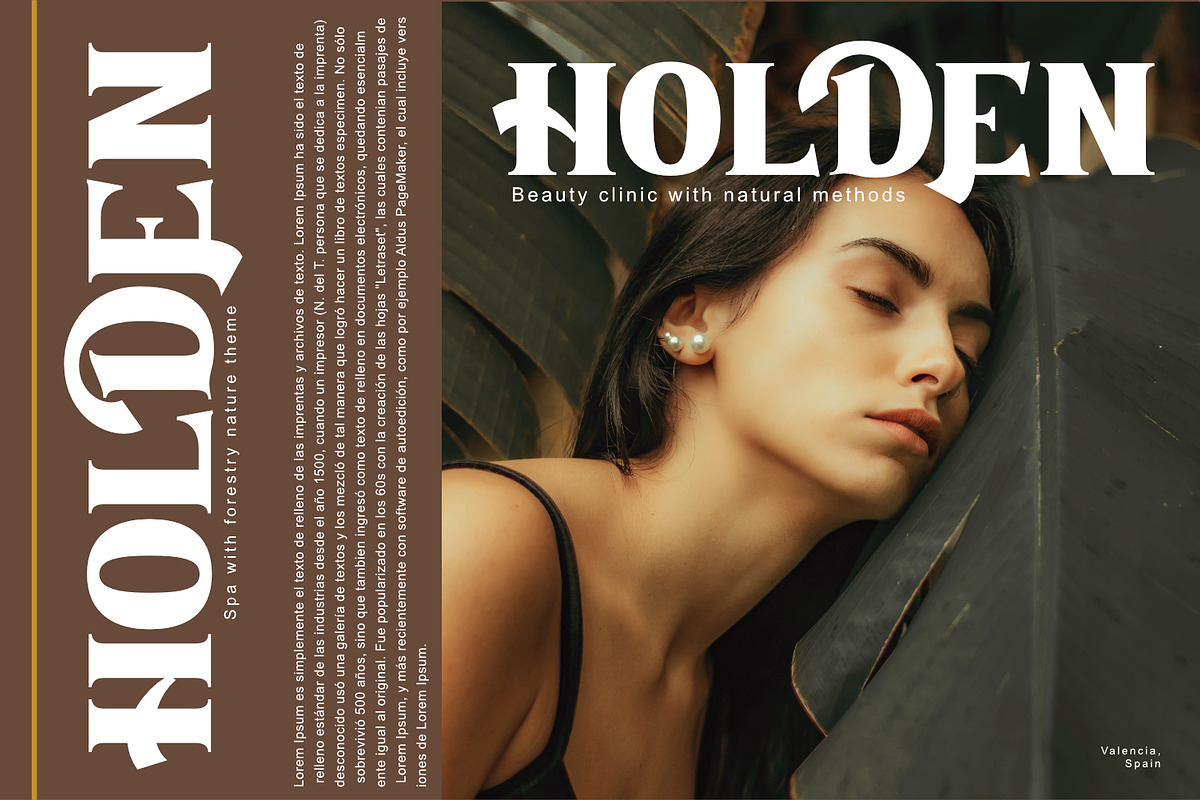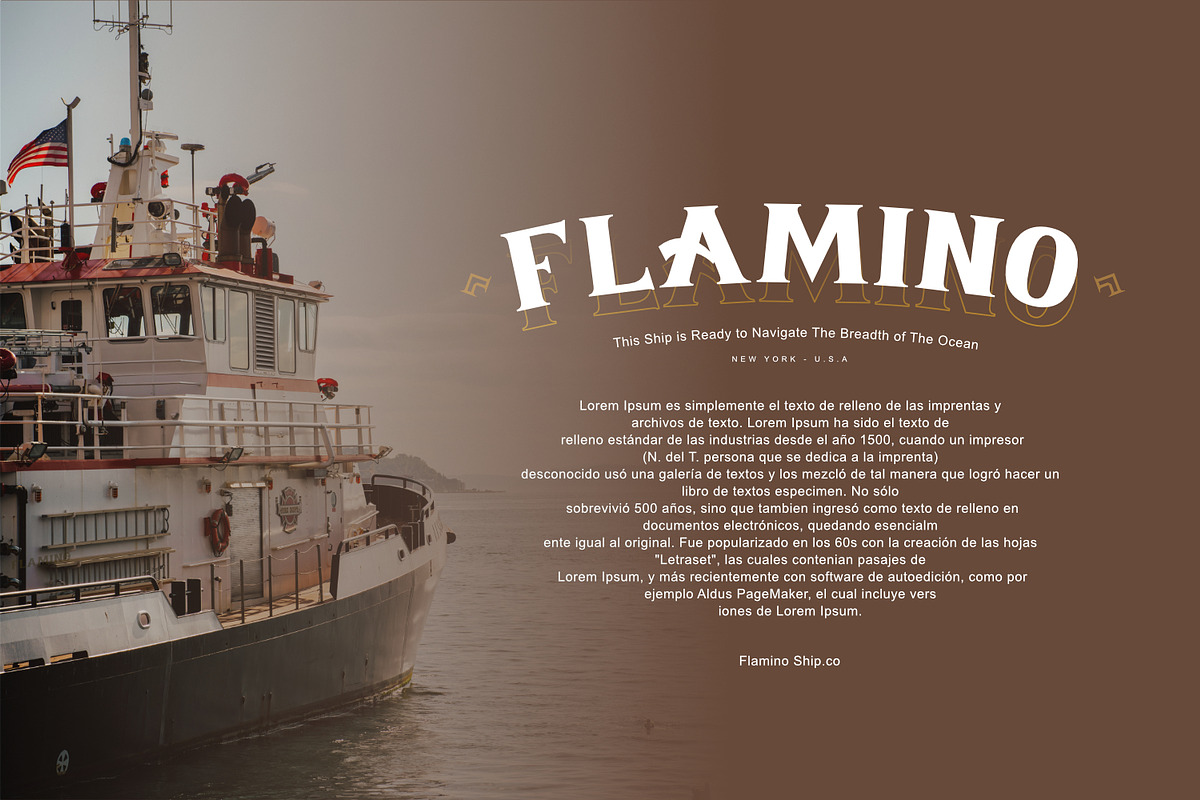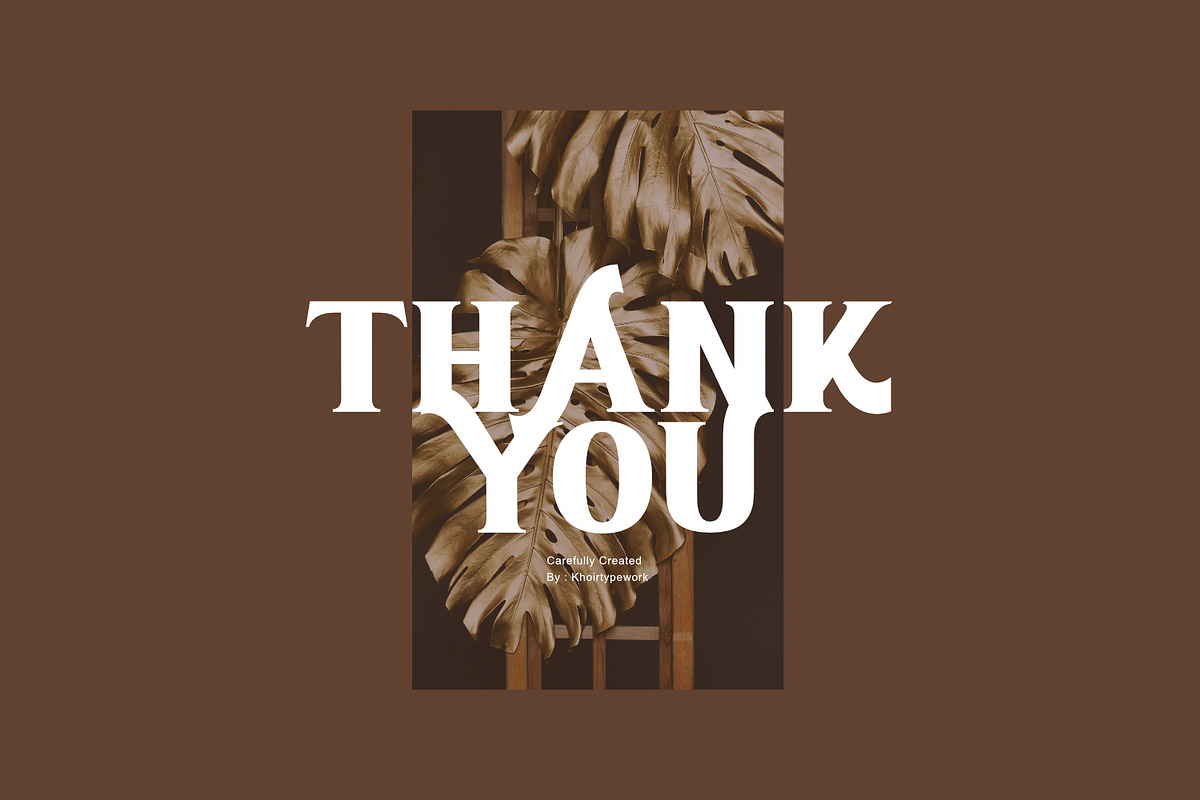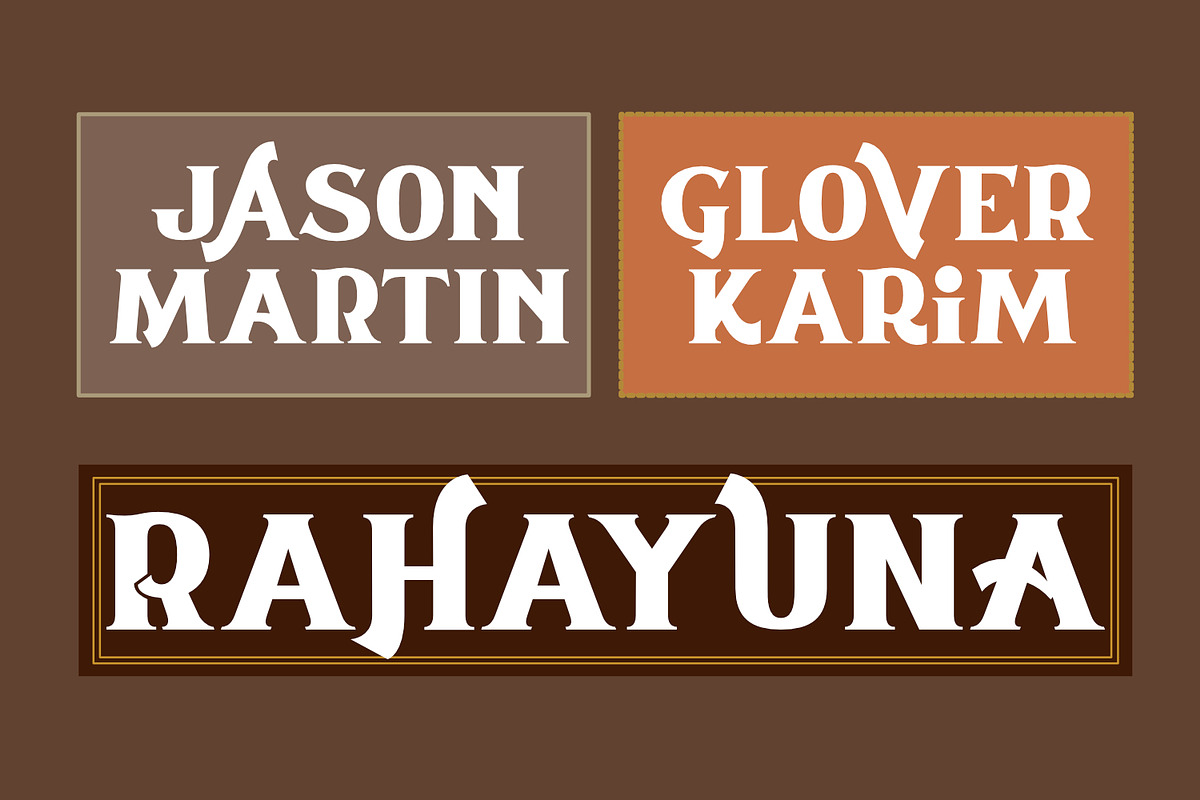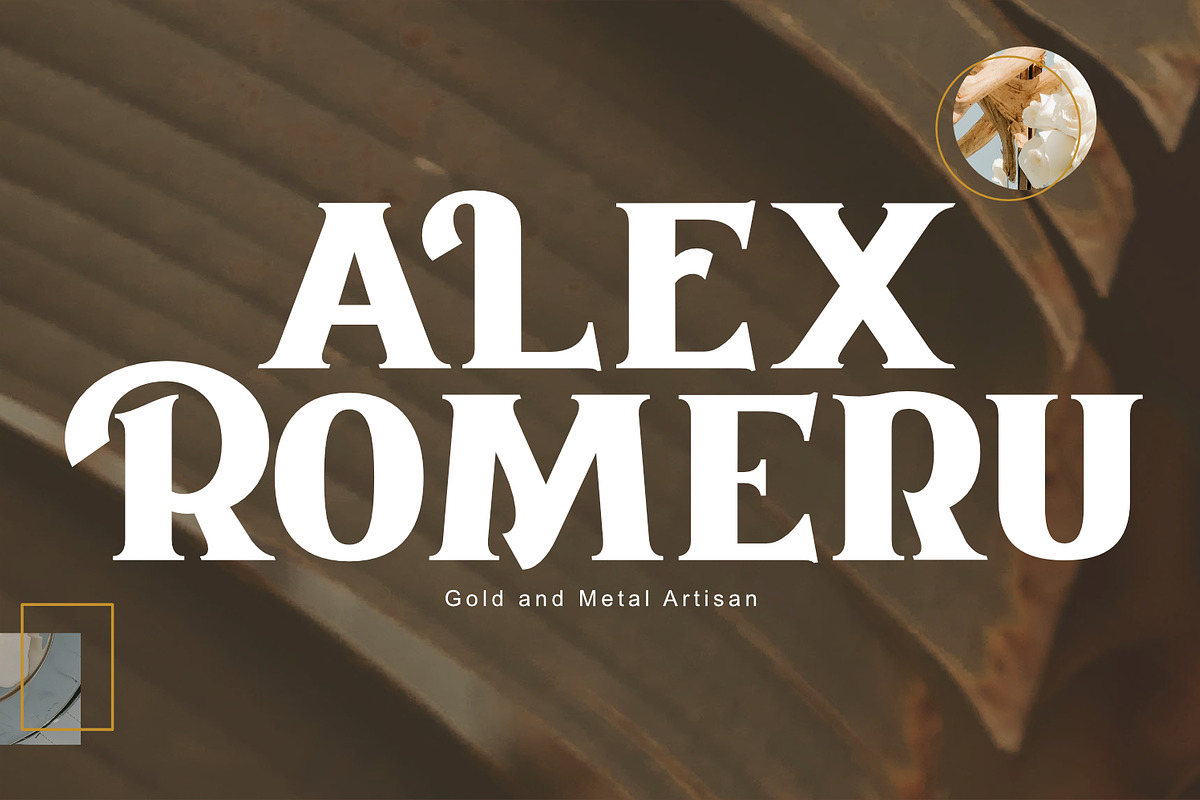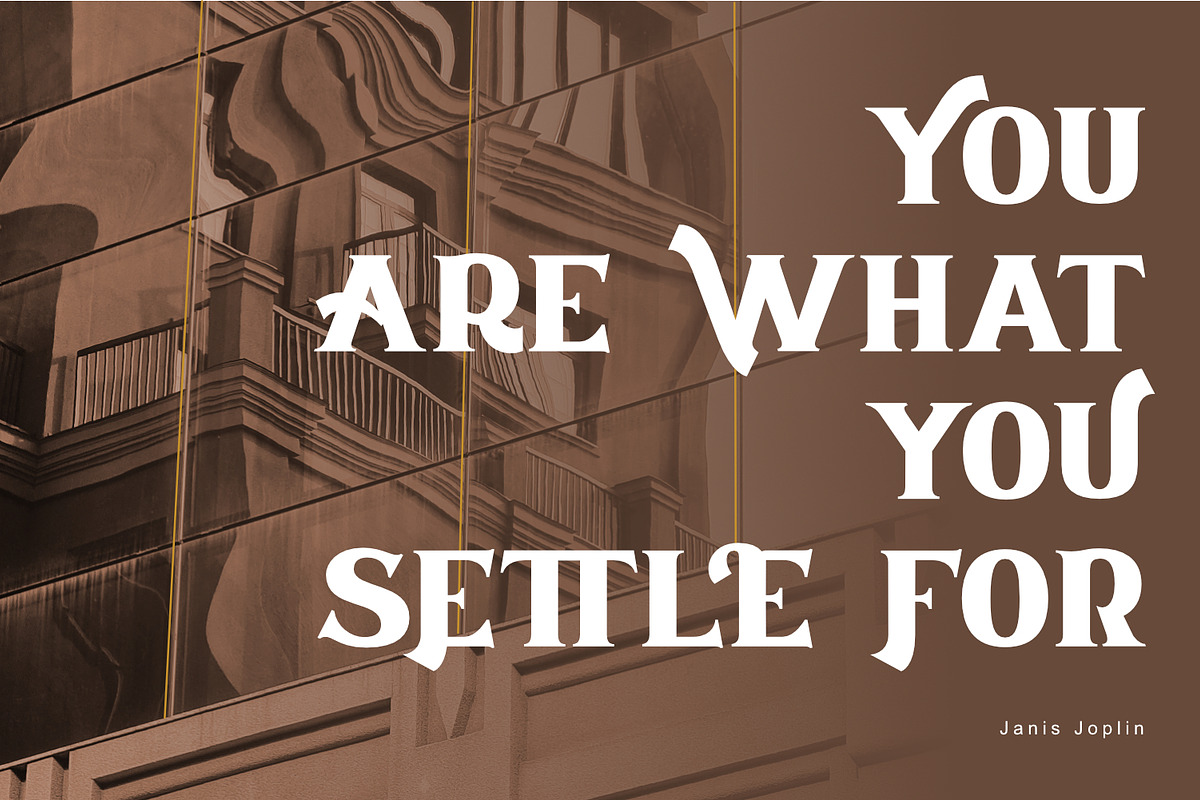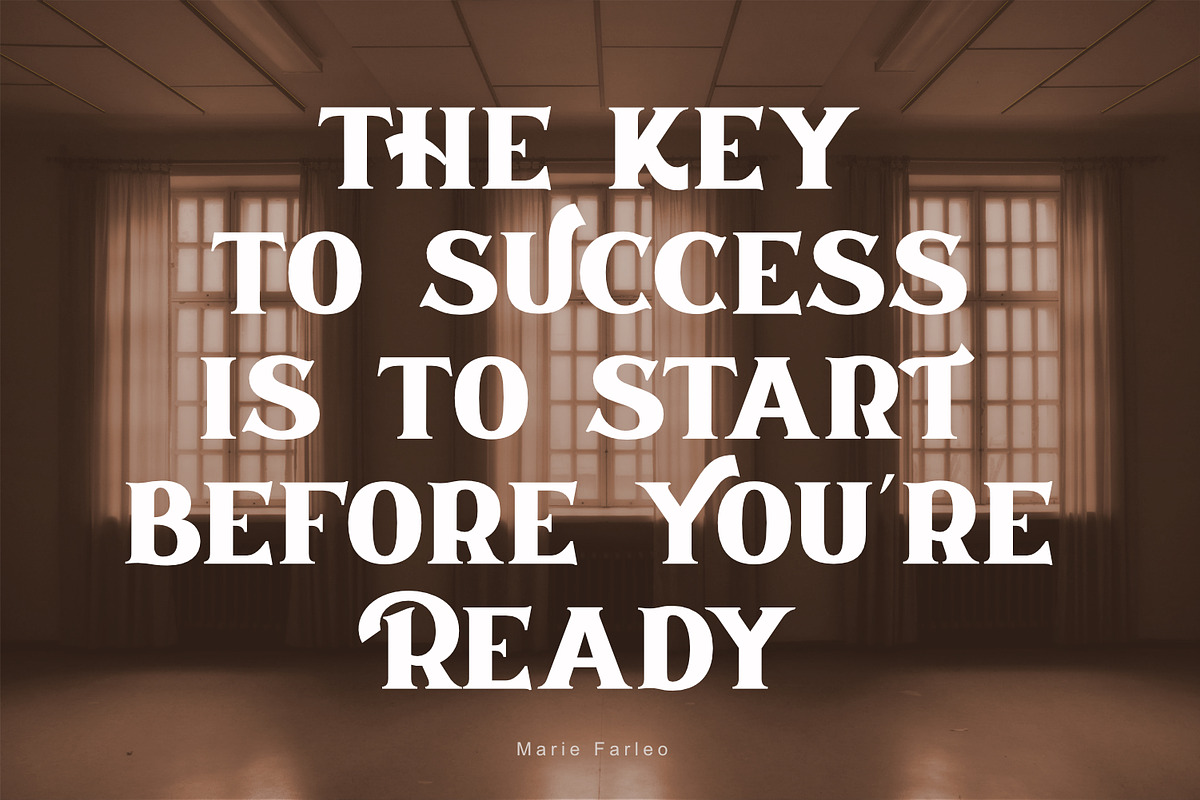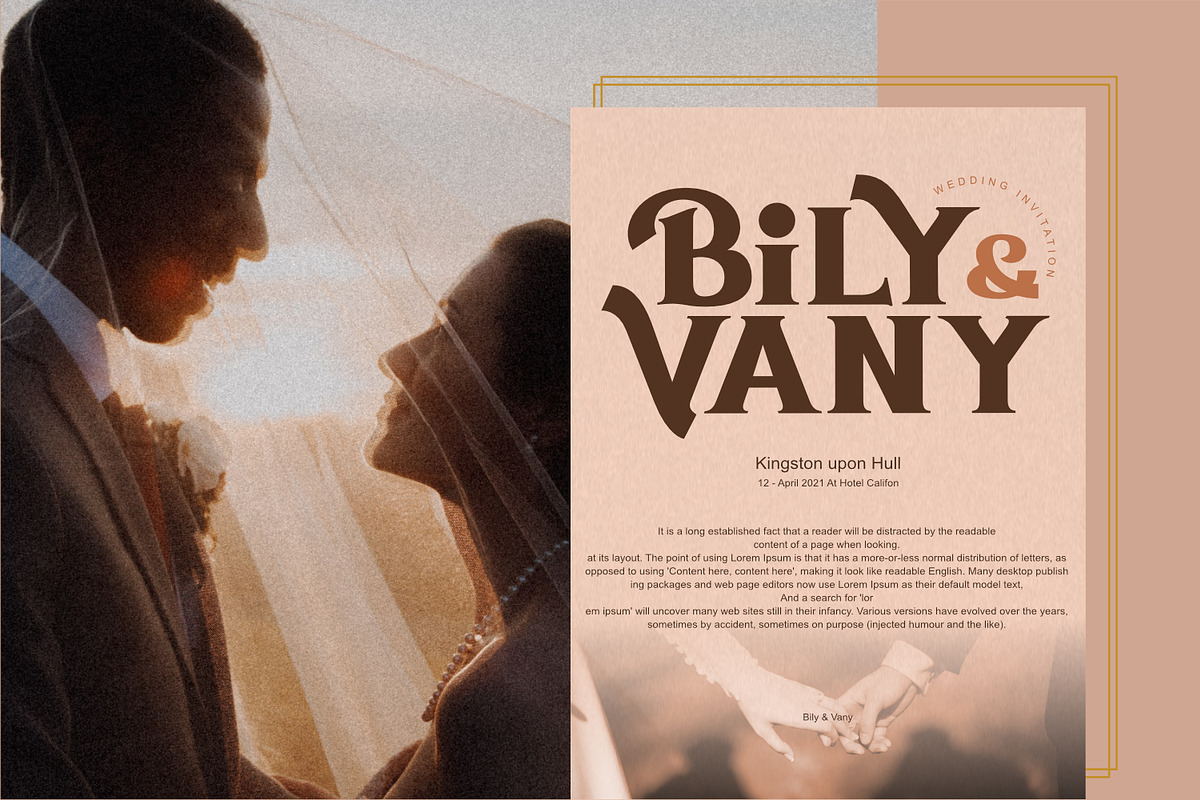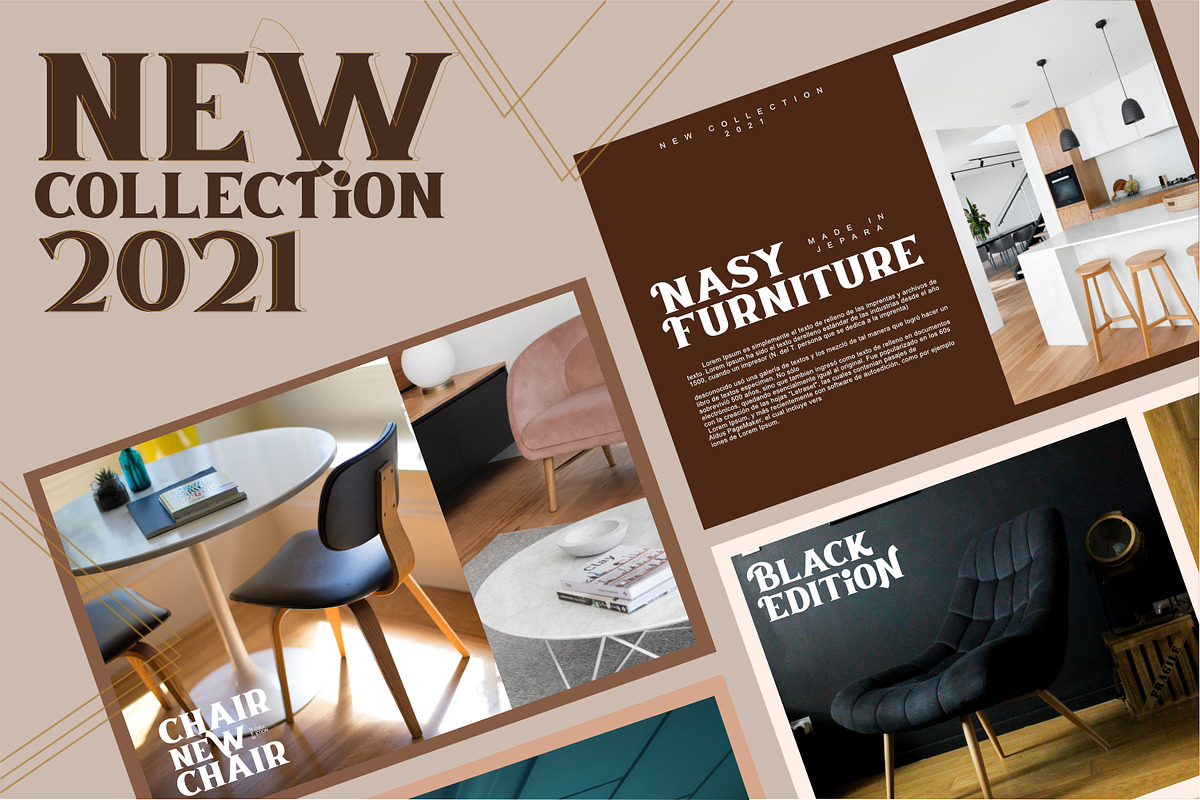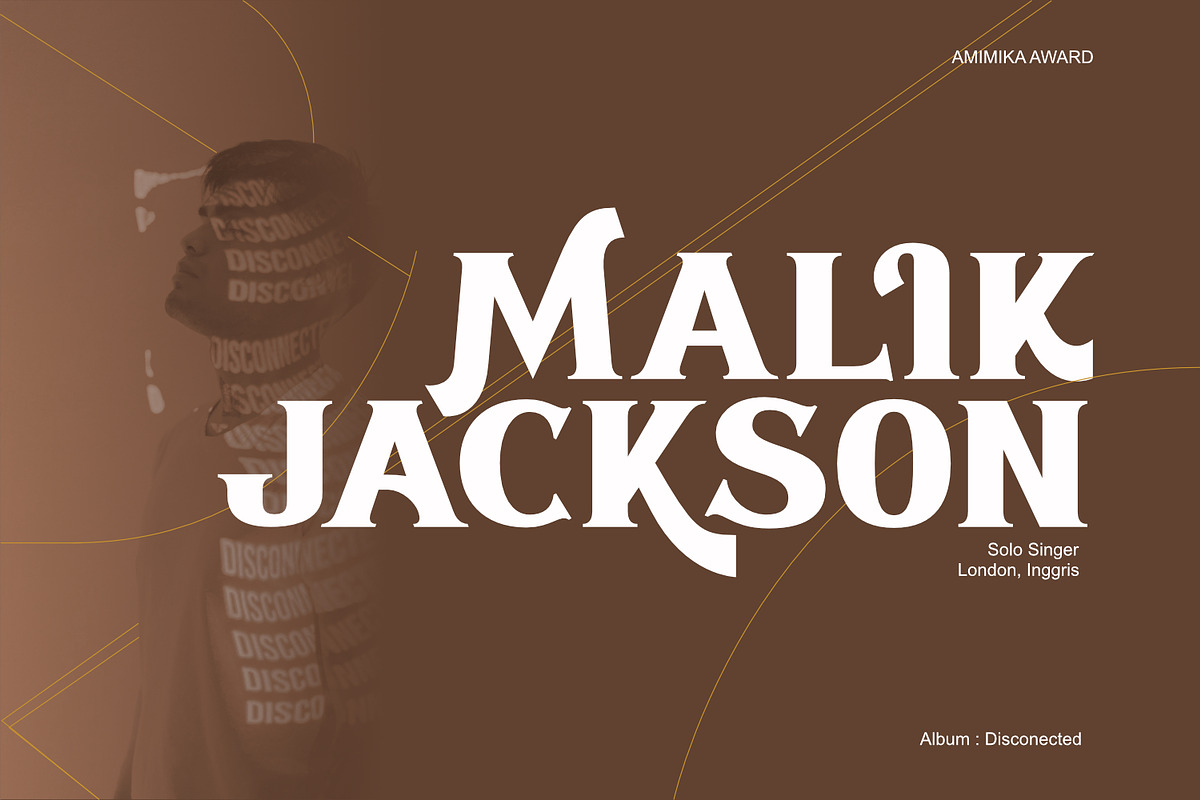
Penina - Serif Classic
Introducing a special classic Penina Serif, giving a new impression in this modern era, bringing you back to the old days with a firm lettering but the existence of a slick alternative letter that has its own fierce characteristics will bring a different impression. This font is suitable for branding, packaging, logos, weddings, magazines, newspapers, greeting cards and much more, so what are you waiting for!
- Uppercase Characters
- Support 75+ Language